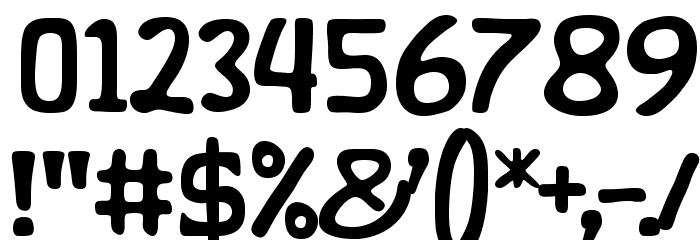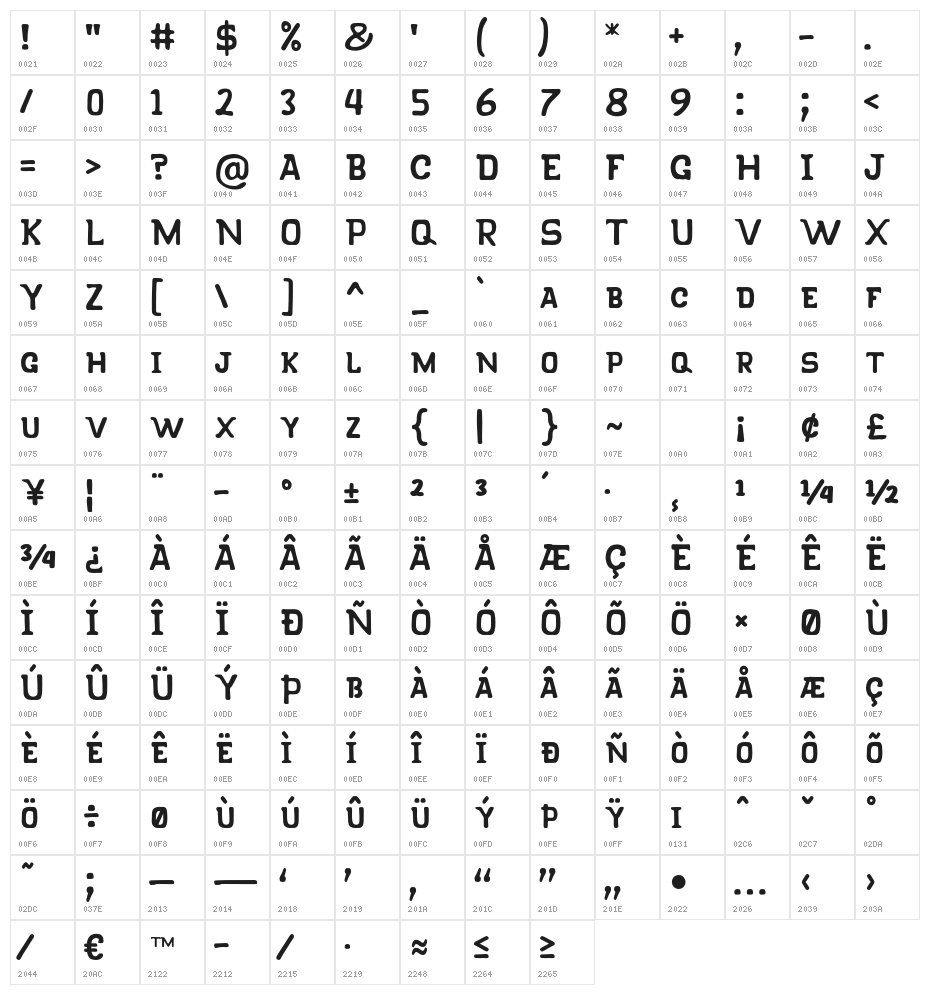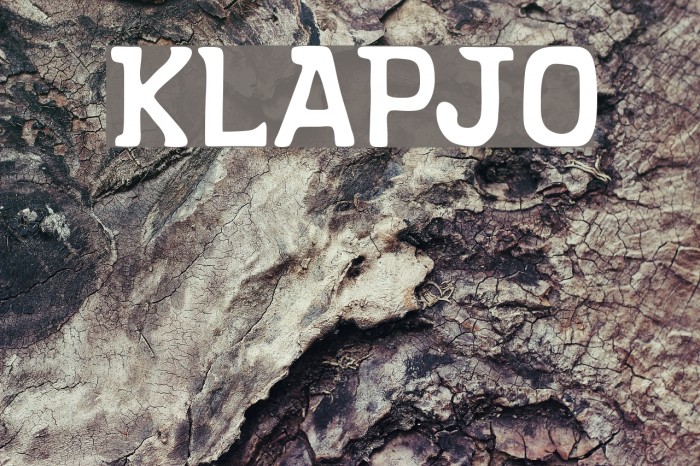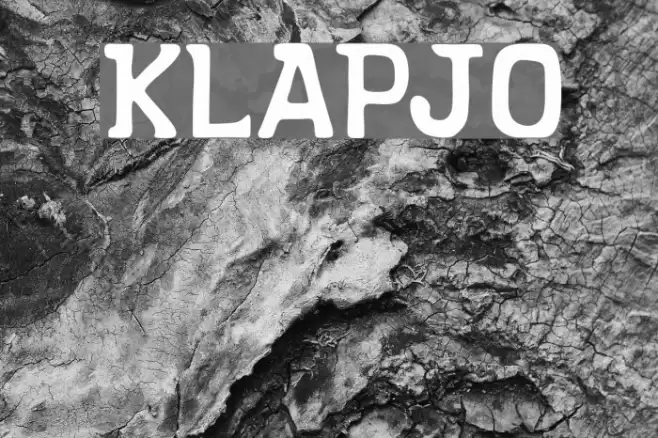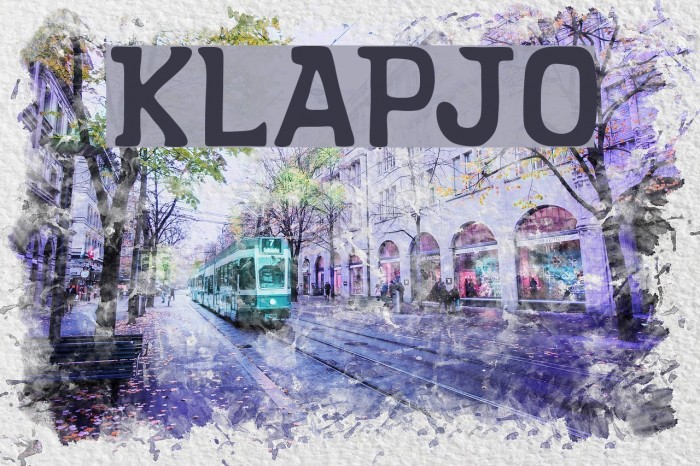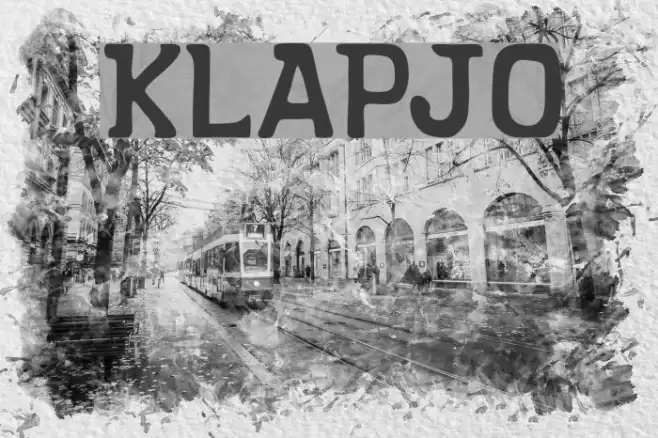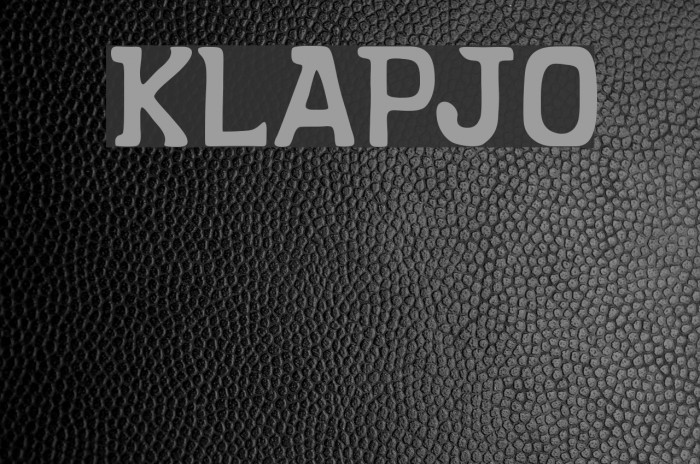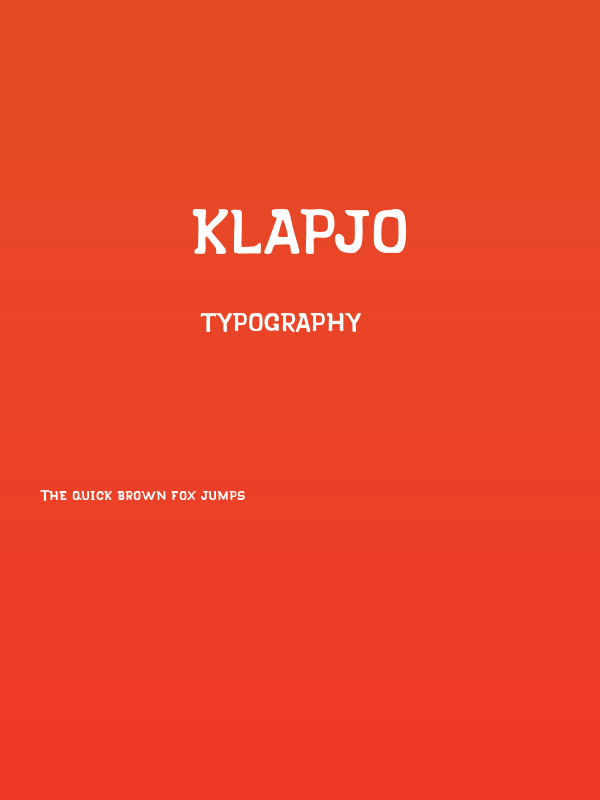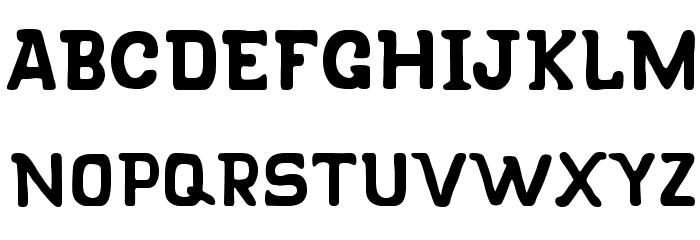
KLAPJO Font
KLAPJO Description
This font features a bold and playful style with rounded edges and a slightly condensed form. The characters are uniform in height, providing a cohesive look across both uppercase and lowercase letters. The numbers and special characters maintain the same playful aesthetic, making them suitable for a variety of creative projects. The strokes are consistent in width, offering a medium contrast that enhances readability while maintaining a fun and engaging appearance. This font is ideal for projects that require a friendly and approachable feel, such as children's books, playful branding, or casual invitations.
| Overall Style | Playful, Friendly |
| Proposed Projects | Children's books, playful branding, casual invitations, posters, and social media graphics. |